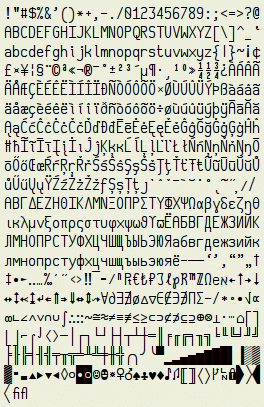
Fredrick R. Brennan
TT2020 Font
An advanced, realistic typewriter typeface designed to mimic the imperfections of real ink
seán patrick john paul george ringo doranFirst to rec““There are so many of these unrealistic typewritten documents in late-2010’s cinema that almost any movie with a typewritten document in it will be hopelessly unrealistic, or [t]he universe, nay, God himself, was urging me on to complete this project in lieu of others I could finish!” — Fredrick R. Brennan on the two possibilities of why bad typewriter scenes kept popping up in his life”
James Kylstra“A very interesting little rant about fake digital typewriter fonts, with an attached solution!”